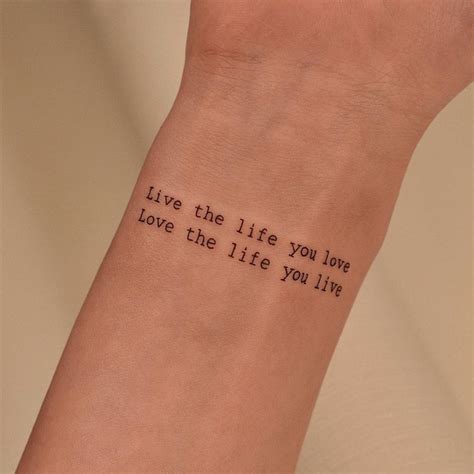
Wrist Tattoo Font, 50 breaking bad tattoo designs for men walter white ink ideas. Then there are “sister” tattoos or family tree tattoos for siblings or the whole family.
A few favorites include calligraphy, gothic, script, medieval, and classic. 70 tiny quote tattoos that are inspiring, uplifting, and encouraging — see the best ink. Click to find the best 290 free fonts in the tattoo handwriting style.
Roman numeral 3 tattoo meaning. Fortunately, we have many unique tattoo font styles for men and women, such as calligraphy, cursive, and traditional styles. Tattoo designs on the wrist vary as there are simple designs as well as complex designs. 7 types of wrist tattoos.
The butternut solid font imparts a strange but satisfying feel about the tattoo. There are spaces on both the outer and inner edges of the wrist where a small tattoo might fit. The unique way of presentation is so classy. They simply represent boldness and vanity of a woman. Nice religious ek onkar baba nanak face tattoo on shoulder.
The ultra bold side arm tattoos Roman numeral 3 tattoo meaning. Every font is free to download! Gibrael is a tattoo script font with an artistic handwritten design. Those who want to look cool or jazz their tattoos up often use tattoo fonts like that.
Commonly asked wrist tattoo questions. There is the simple word “family” in interesting fonts, scrawls and ambigrams to adore your wrists. 109 small wrist tattoo ideas for men and women (2020) wrist tattoos are one of a kind. Click to find the best 290 free fonts in the tattoo handwriting style. The ultra bold side arm tattoos
Commonly asked wrist tattoo questions. The last step is to try out your favorites in the girly tattoo font generator. Lettering styles include tribal, traditional sailor, blackletter, fancy, cursive, script, etc. Check out the best designs here. Get it on your non dominant hand (or hand you wear a watch on) find a position that the watch would be comfortable,.
Roman numeral fonts for tattoos. Bigelow rules font style for a name tattoo. The butternut solid font imparts a strange but satisfying feel about the tattoo. This graceful wrist tattoo features yet another moon design, but this time there is also a small stalk of flowers accompanying this moon tattoo. Wrist tattoos are one of a kind.
If you want cool, charming and meaningful ink, wrist tattoos are always a versatile and unique option for men. Bigelow rules font style for a name tattoo. What i do is go into paint and type in what i want. Commonly asked wrist tattoo questions. Fortunately, we have many unique tattoo font styles for men and women, such as calligraphy,.
There are many ways to tattoo your friend or sibling’s birth date and death date on your wrist, but one of the most unique is with roman numerals. Then there are “sister” tattoos or family tree tattoos for siblings or the whole family. However, if you want your small tattoo to be eyecatching regardless of its size, you can have.
7 types of wrist tattoos. If you want cool, charming and meaningful ink, wrist tattoos are always a versatile and unique option for men. Bilbo swash caps font style for a name tattoo. Clicker script font style for a name tattoo. Wrist tattoos are one of a kind.